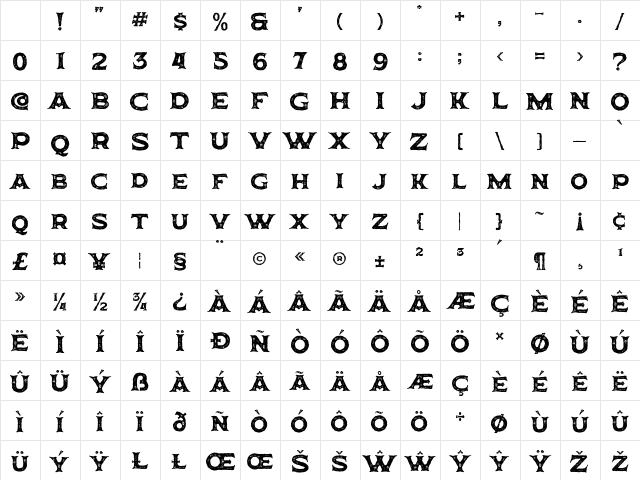
Horbse embraces imperfection - its rough, textured character adds raw authenticity to designs that want to feel lived-in and unconventional.
Pro Tip: Use Horbse at larger sizes where the texture and irregularity of each letterform can be clearly seen - it loses its character at small sizes.